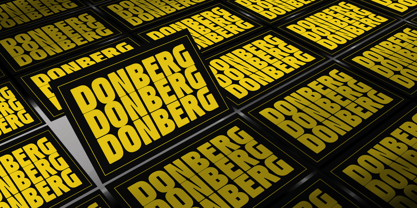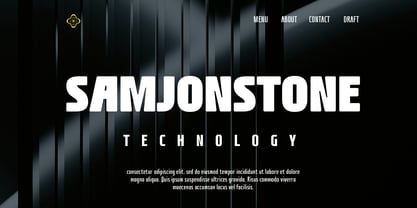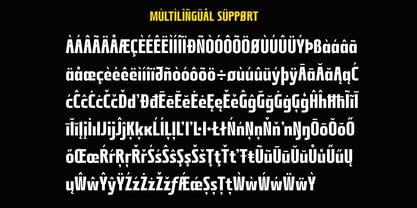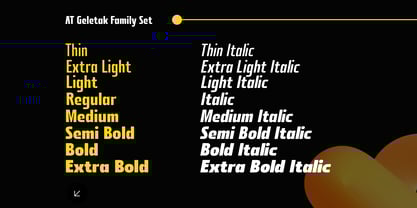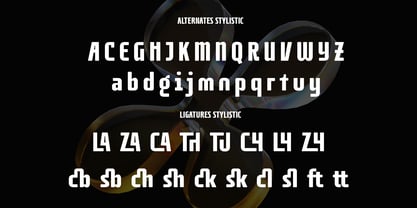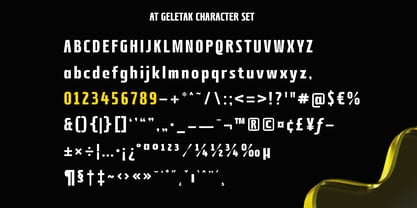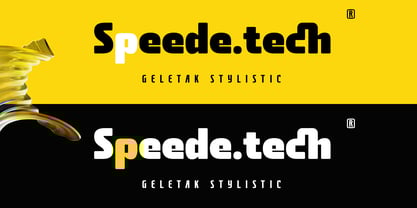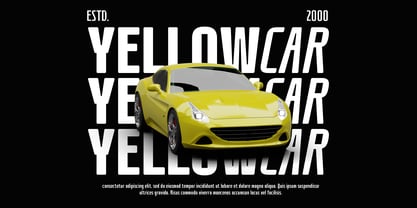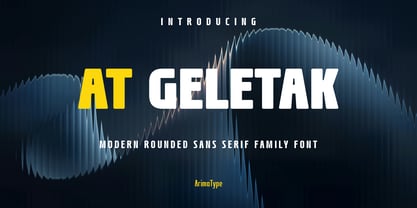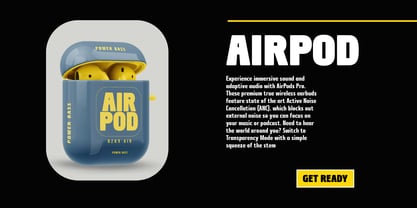
AT Geletak
by ArimaType
The AT Geletak Font Family was designed by Amri Mauludin and published by ArimaType. AT Geletak contains 16 styles and family package options.
AT Geletak is a display-leaning sans serif typeface designed for creators who want to communicate clarity with a bold visual identity. Built on a clean and professional sans serif structure, AT Geletak introduces sharp, angular forms at the center of its letter shapes, delivering a unique, modern tone that sets it apart from predictable, overly polished typography. Driven by the idea of crafting a sans serif that works in both formal and informal contexts, AT Geletak offers visual flexibility in a single type family. It holds enough authority for corporate branding, while still carrying a distinct personality that shines in more expressive and experimental design spaces. Perfect for a wide range of applications including book covers, film posters, magazine layouts, brand identities, product packaging, editorial projects, and digital interfaces that demand strong, memorable typography. AT Geletak delivers a solid and confident presence without feeling rigid or forgettable.